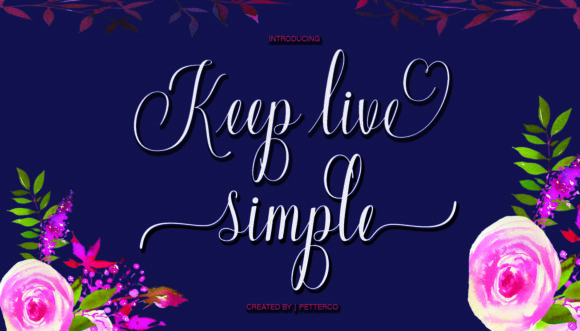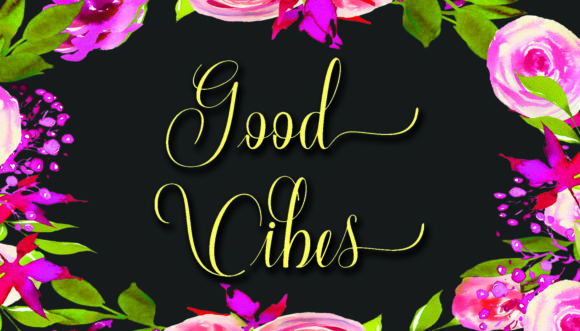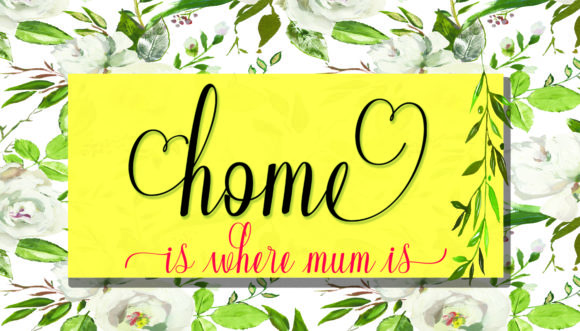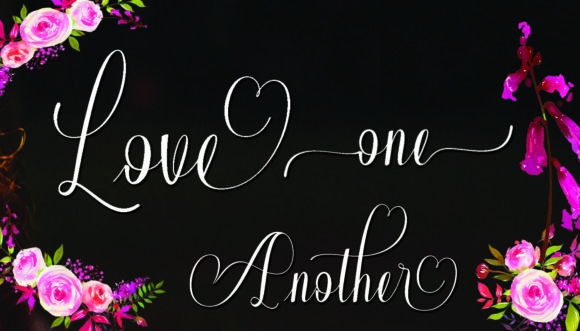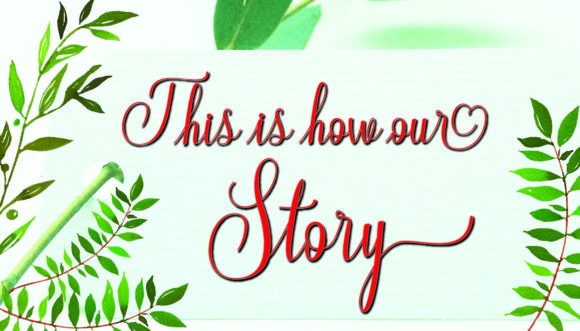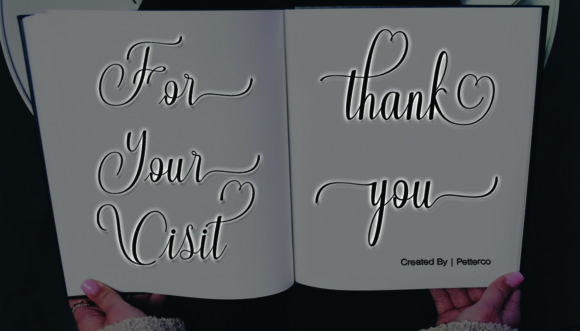
Keep Live Simple Font
About Keep Live Simple Font
Keep Live Simple is a stunning and beautiful unique handwritten font with a bold twist. It will effortlessly create authentic and lovely design projects.